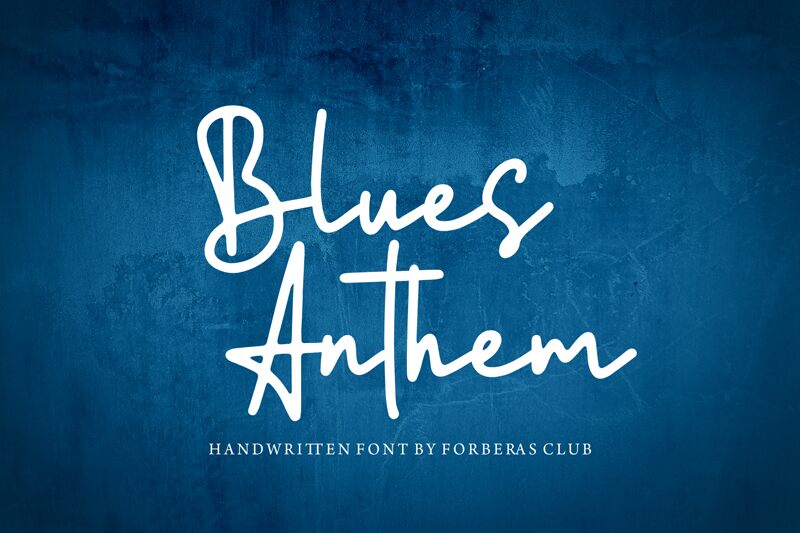
Blues Anthem is a stunning semi-light handwritten signature font designed by Forberas Club. With its unique and elegant style, Blues Anthem is perfect for projects that require a touch of sophistication and personalization. Its fluid strokes and delicate curves make it ideal for logos, branding materials, wedding invitations, or any project that needs a signature-like font. The semi-light weight adds to the font's charm, making it easy on the eyes while still maintaining its elegance. So whether you're designing a business card or creating social media graphics, Blues Anthem is sure to impress with its refined aesthetic.
Blues Anthem